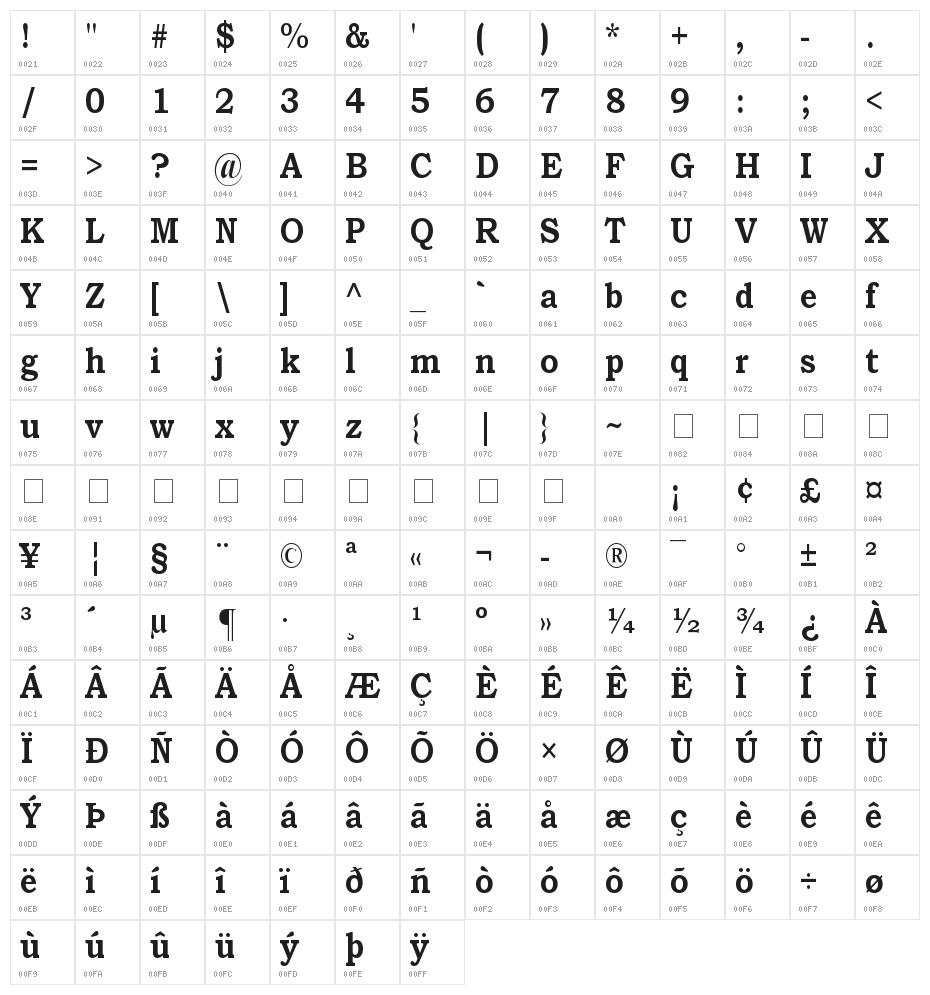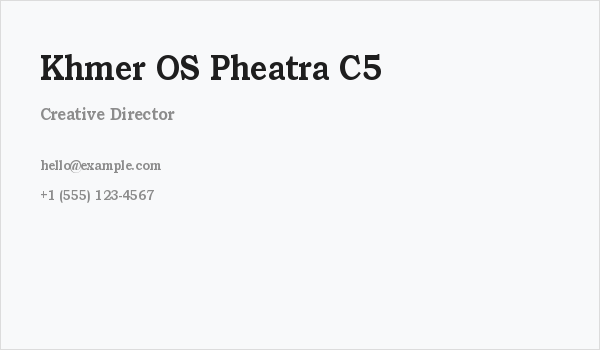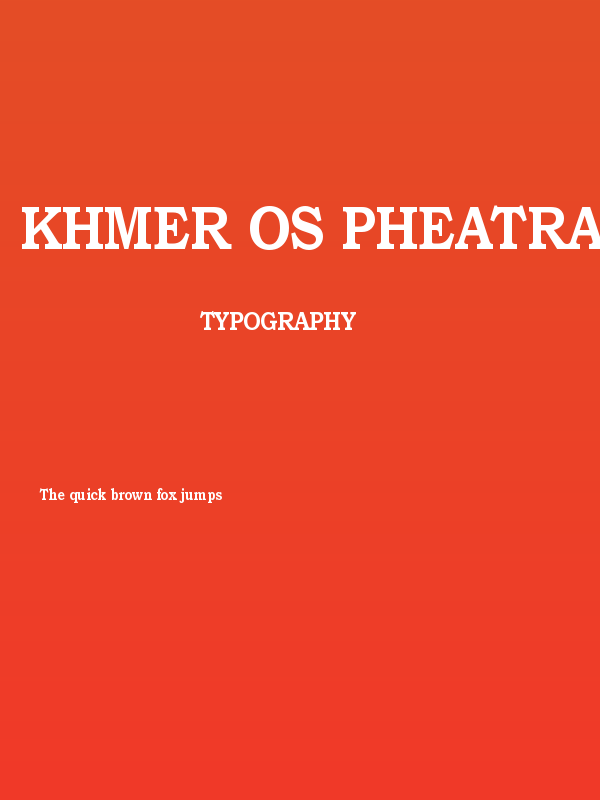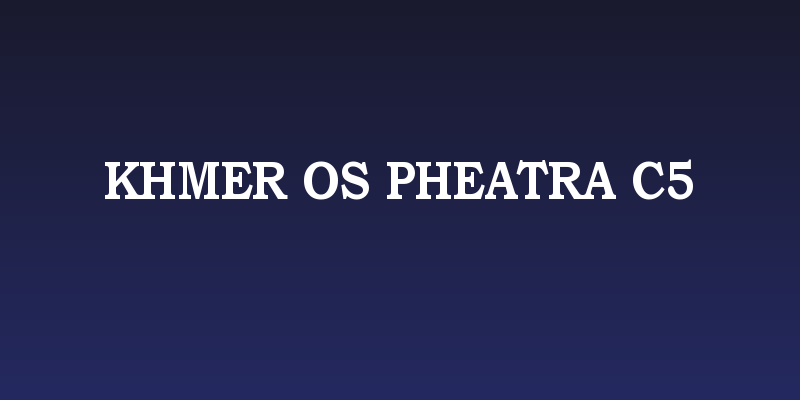
Khmer OS Pheatra C5 Font
Khmer OS Pheatra C5 Description
This font features a bold and robust serif style with strong, pronounced strokes and a classic appearance. The uppercase letters are tall and commanding, while the lowercase letters maintain a consistent and harmonious flow. The numerals are clear and easily distinguishable, making them suitable for various applications. The special characters are well-integrated, matching the overall aesthetic of the font. This typeface exudes a sense of tradition and reliability, making it ideal for formal and professional settings.
| Proposed Projects | Ideal for use in editorial design, book covers, formal invitations, and corporate branding. |